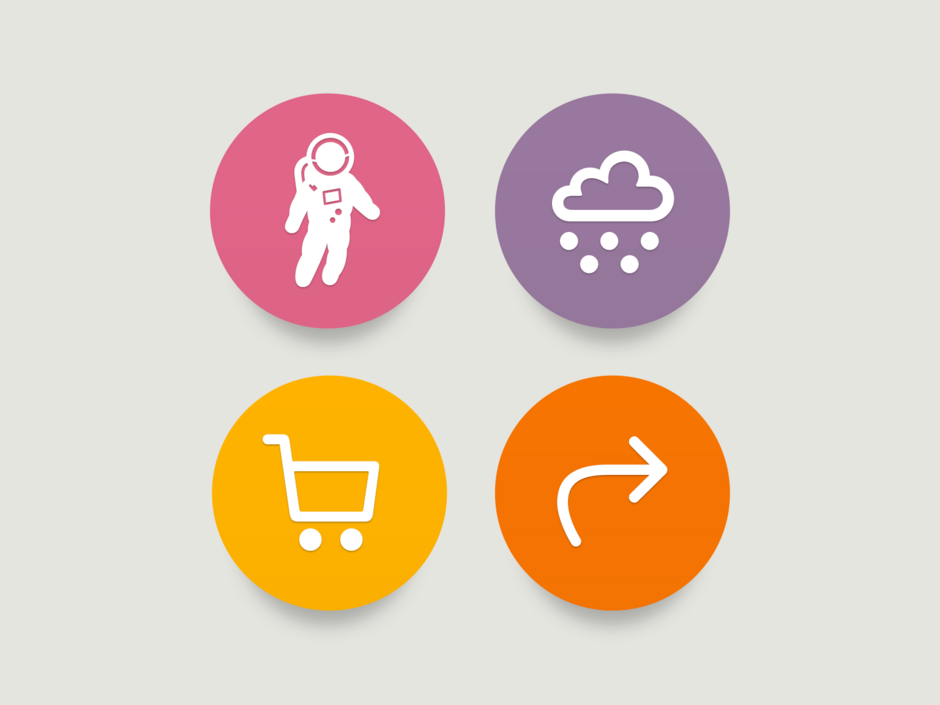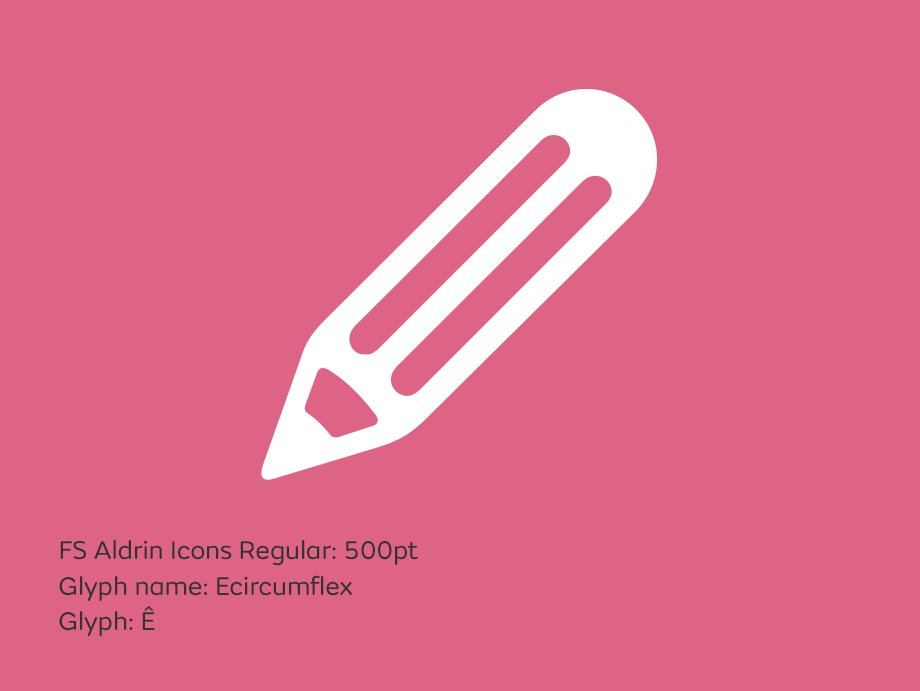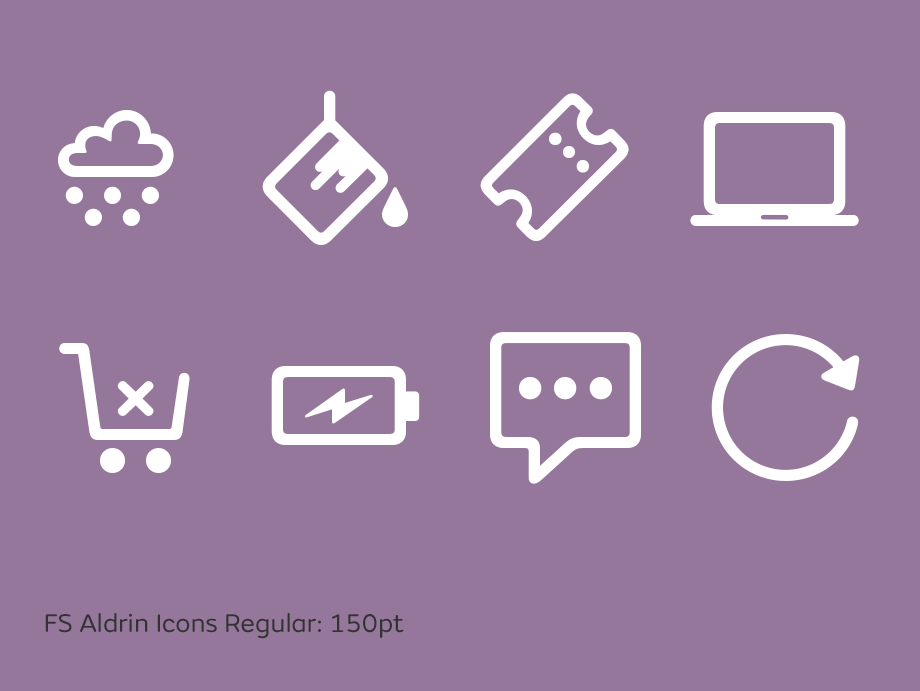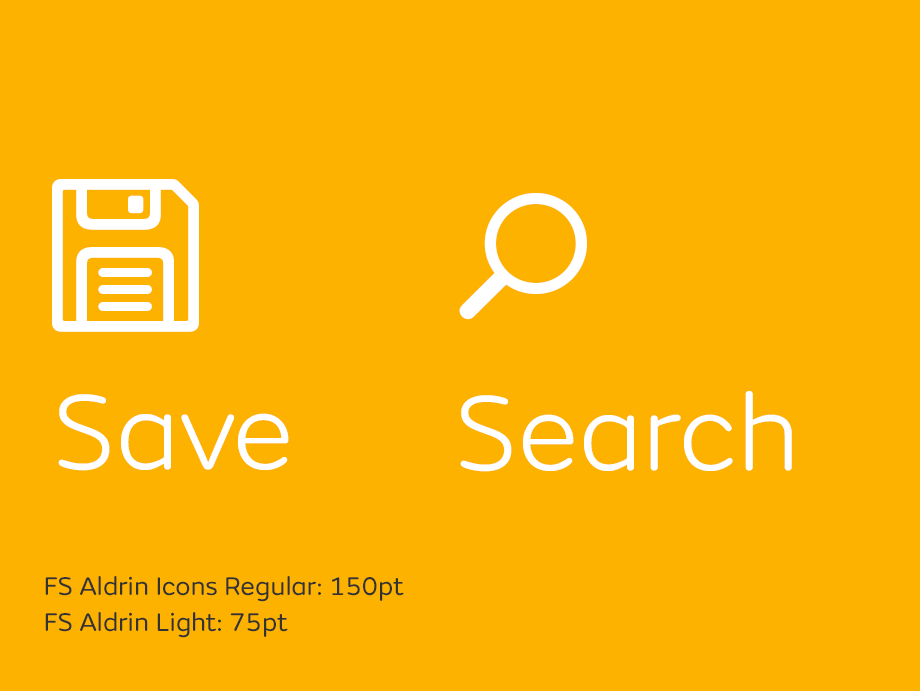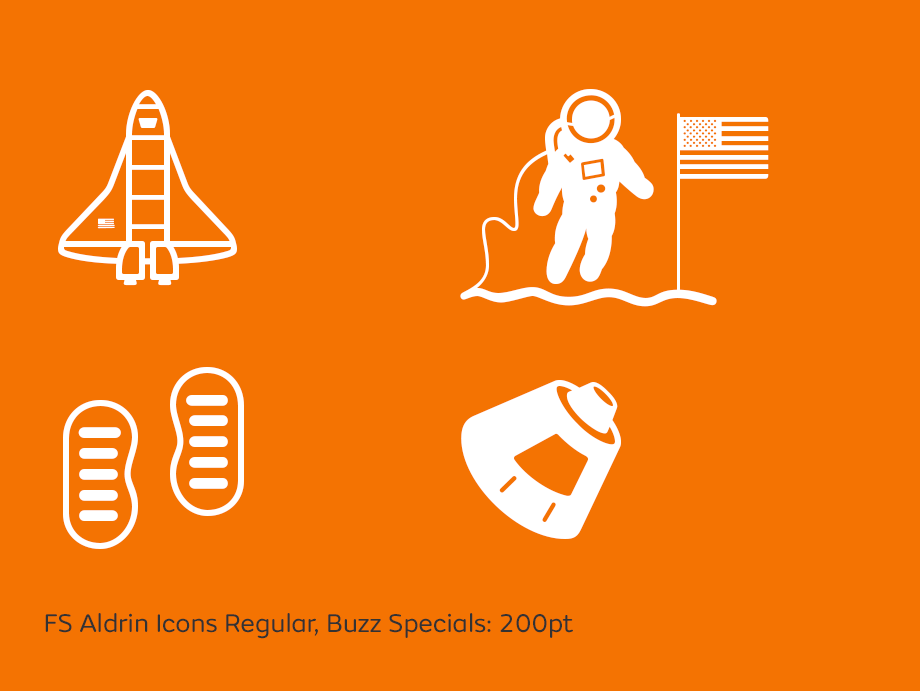
From astronauts to arrows: The FS Aldrin Icons
Our new radiant typeface FS Aldrin® is packaged along with it’s very own unique icon font. FS Aldrin Icons is a suite of 268 symbols that extend the FS Aldrin design language, covering a range of commonly used interface applications and themes from e-commerce to weather. The Icons font serves as a solid starting point for further exploration, development and extension as a bespoke brand icon set for your projects. It is available as part of the full font family or can be licensed as an individual font file.
User Interface icons were born in the early era of computer graphics, initially developed by Xerox under the presumption that they would facilitate human-computer interaction. Over the years UI icons have become a hugely important aspect of visual communication, specifically in small digital environments where space is restrictive and the speed by which you communicate is key. You only have to look at social media apps such as Twitter and Facebook to recognise the important space saving ability that icons offer over text. With this in mind the simplification and precise focus of interface controls and navigators is hugely important.
The main benefits of using UI Icons are:
- Icons can be quickly scanned and interpreted and overtime become synonymous with a specific site or app experience.
- They can save space on smaller screens and devices, creating a more harmonious and considered appearance.
- Icons create clear tappable targets, which in turn means intuitive actions from the app or site user.
- Icons can make systems appear more accessible to a new user, which has the effect of increasing the perceived ease of use of a site or app.
It’s important to note that a positional consistency in the presentation of any icon on the screen has a strong effect on usability as a site or app user learns how to interact with them and the surrounding interface.
The FS Aldrin Icons were designed holistically so that they work together as a set and as such are optically weighted to match the weight of FS Aldrin Regular. The effect is that the mid-range font weights of Regular and Medium can work with the icon set harmoniously across a broad range of applications (the mid-weighted fonts are the most versatile whereas the lighter and bolder fonts have a more characterful display nature).
I felt that it was very important to create a strong aesthetic bond within each group of icons to ensure that any associated icons would work together within context. The FS Aldrin typeface is a distinctive rounded font and the features and tone of the FS Aldrin fonts are echoed within the design of the icons. When used together both typeface and icons create a strong identity and design synergy, both sympathetic to each other, they have the same DNA creating a strong brand or interface tone of voice.
The level of detail and balance of each icon design was also hugely important. Detailed elements in icons can be confusing and inevitably fail to scale down well. Retaining a pure structure and form to each icon was of the utmost importance. It has been reported that prioritising individuality over familiarity does not make for intuitive interfaces.
There has been much research into the ambiguity of the ‘classic’ icon forms used today. For instance, the classic ‘Save’ icon expressed as a floppy disk or ‘Search/Zoom’ expressed as a magnifying glass are some examples whereby questions have been raised as to their efficiency at communicating. I mean who uses a floppy disk today? Thankfully, research studies have confirmed that younger folk are ‘not blind to tech’, they understand the conceptual meaning of outdated tech. It’s also common for design context to enforce a clearer meaning.
Born out of FS Aldrin’s astronomical theme and playful nature is also a special collection of icons with the font known as the Buzz Specials! Rockets, shuttles and lunar modules are hidden away in the fonts glyph palette and OpenType features for anyone that is looking for some astronomical icon fun!
(Hint: if you type the word BUZZ with ligatures enabled, an astronaut appears).